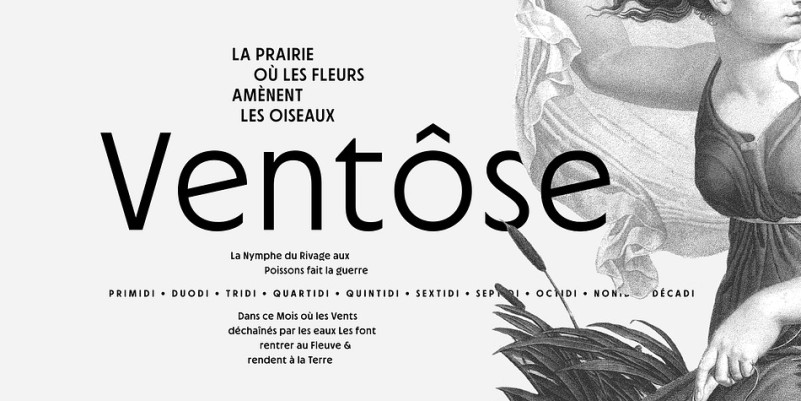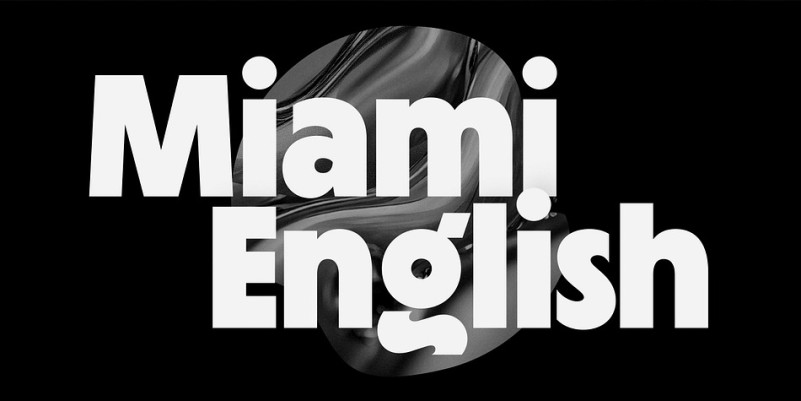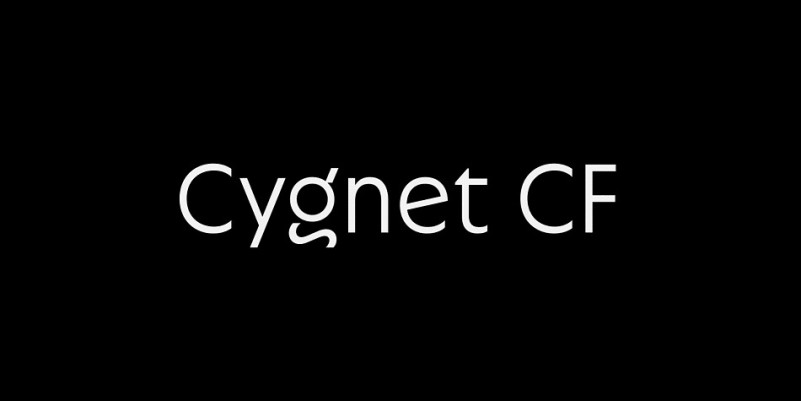
Cygnet CF Font
Cygnet CF Font, charms with classic warmth and curious verve. An absurdly generous x-height makes this surprisingly readable and versatile display typeface perfect for headlines, captions, logos, and more. Nine weights plus italics grant a wide range of applications and moods, from airy thins to intense and playful bolds.